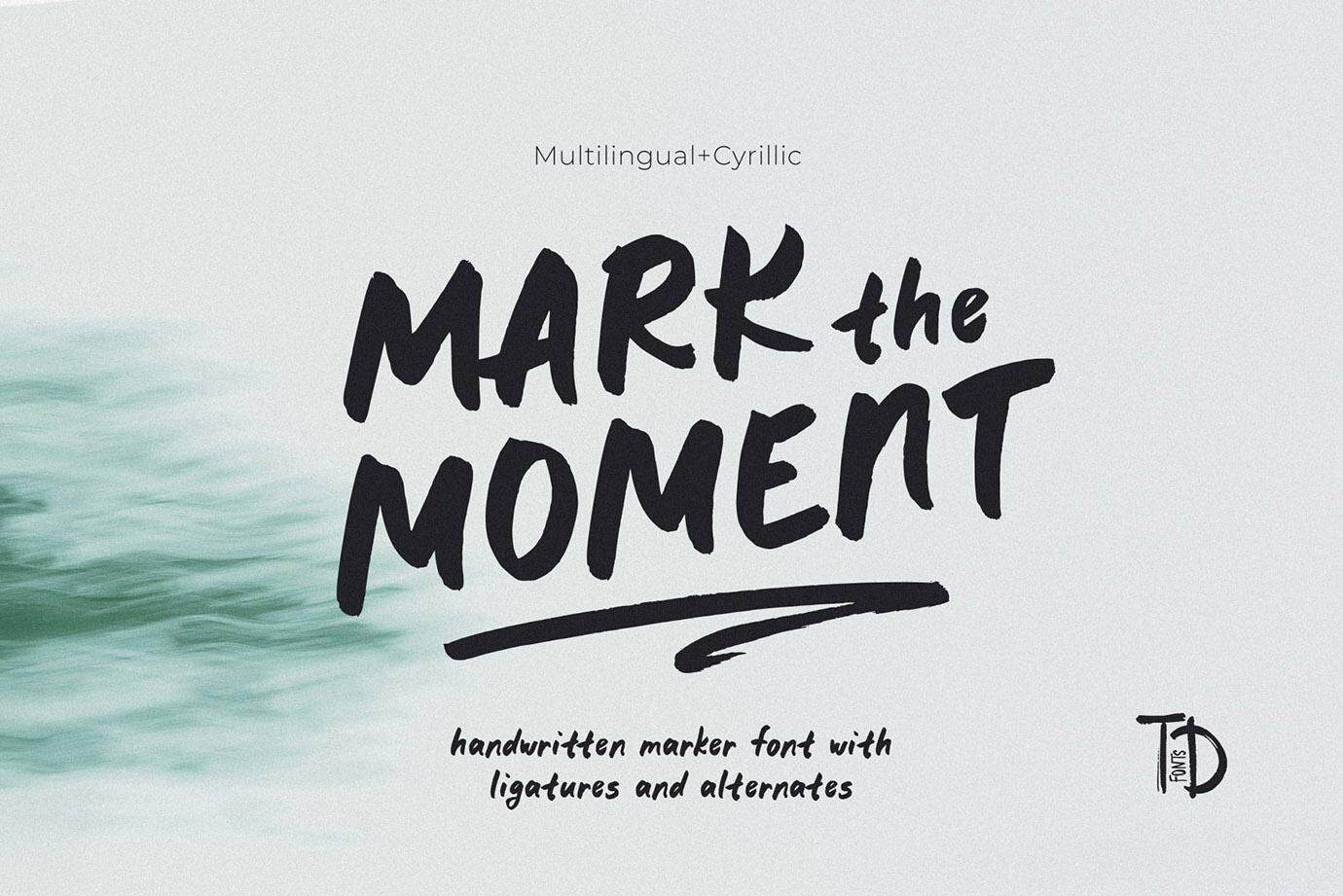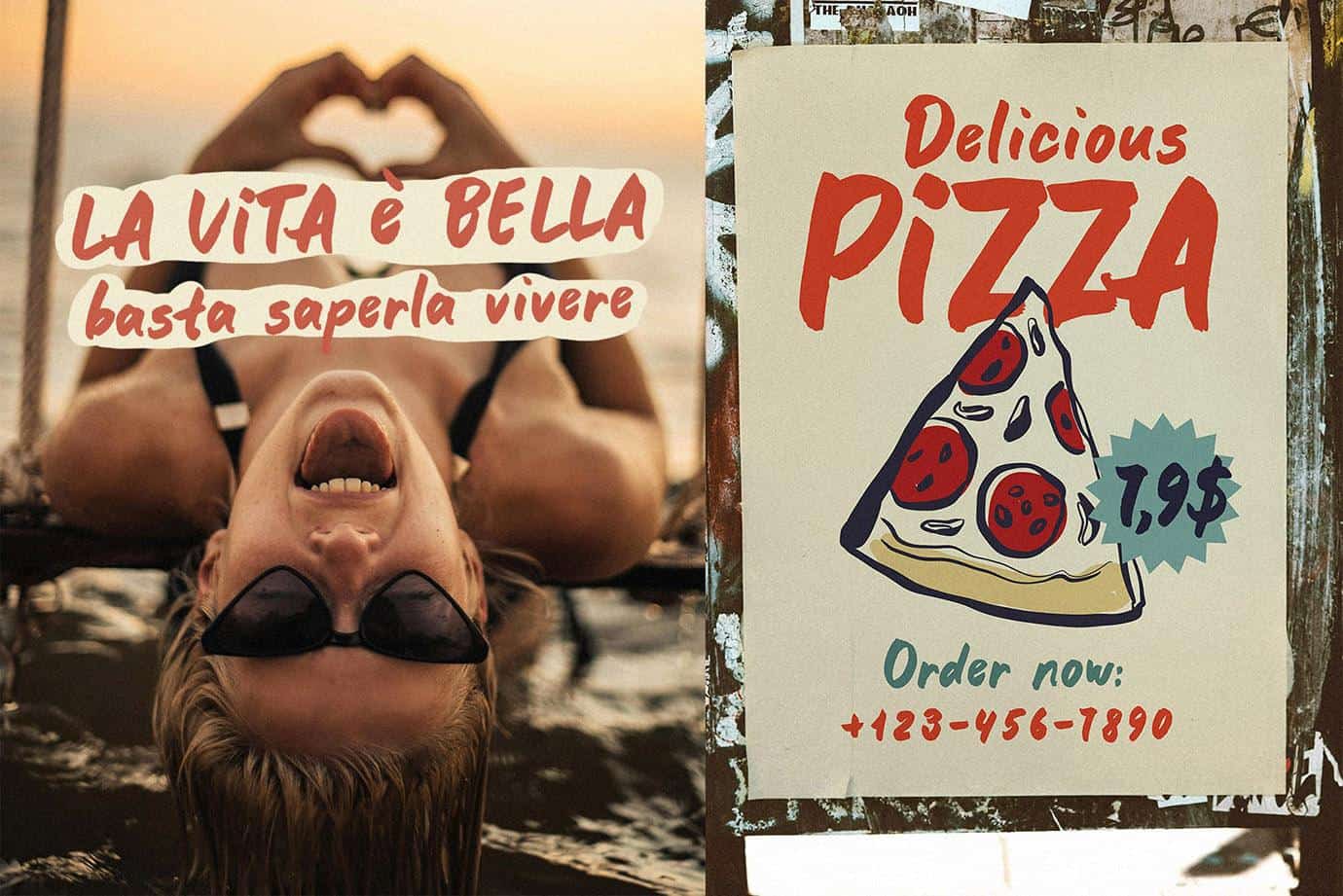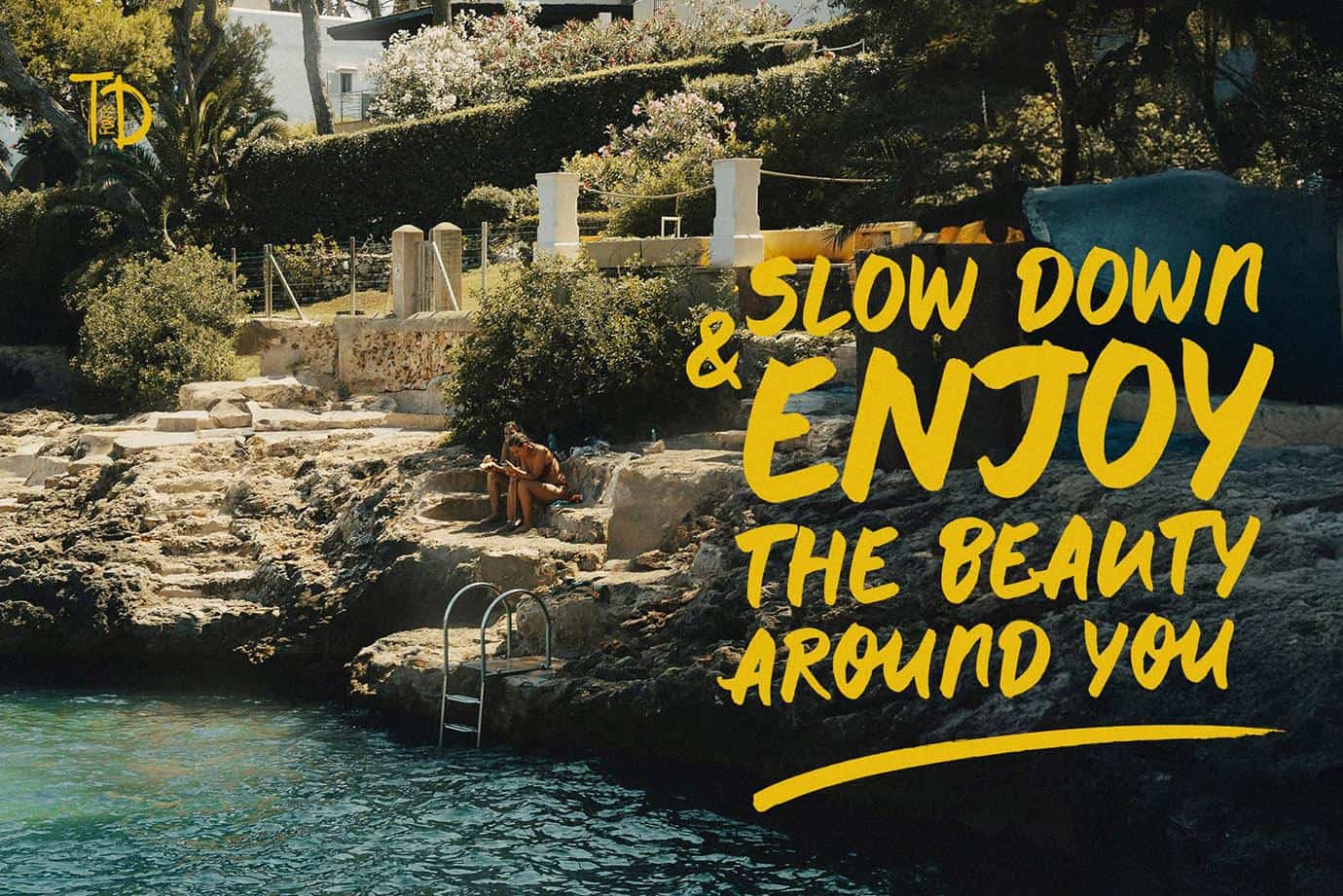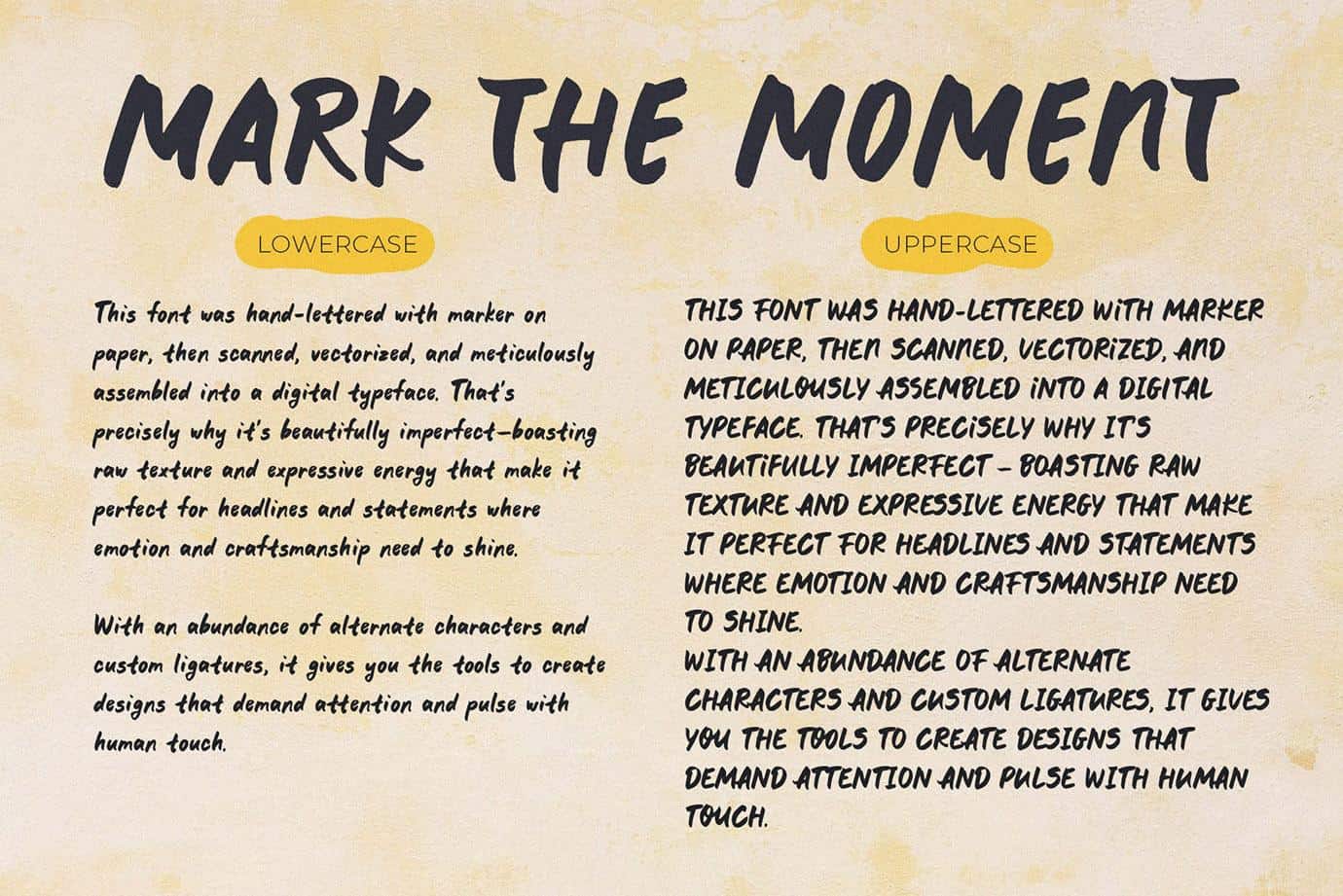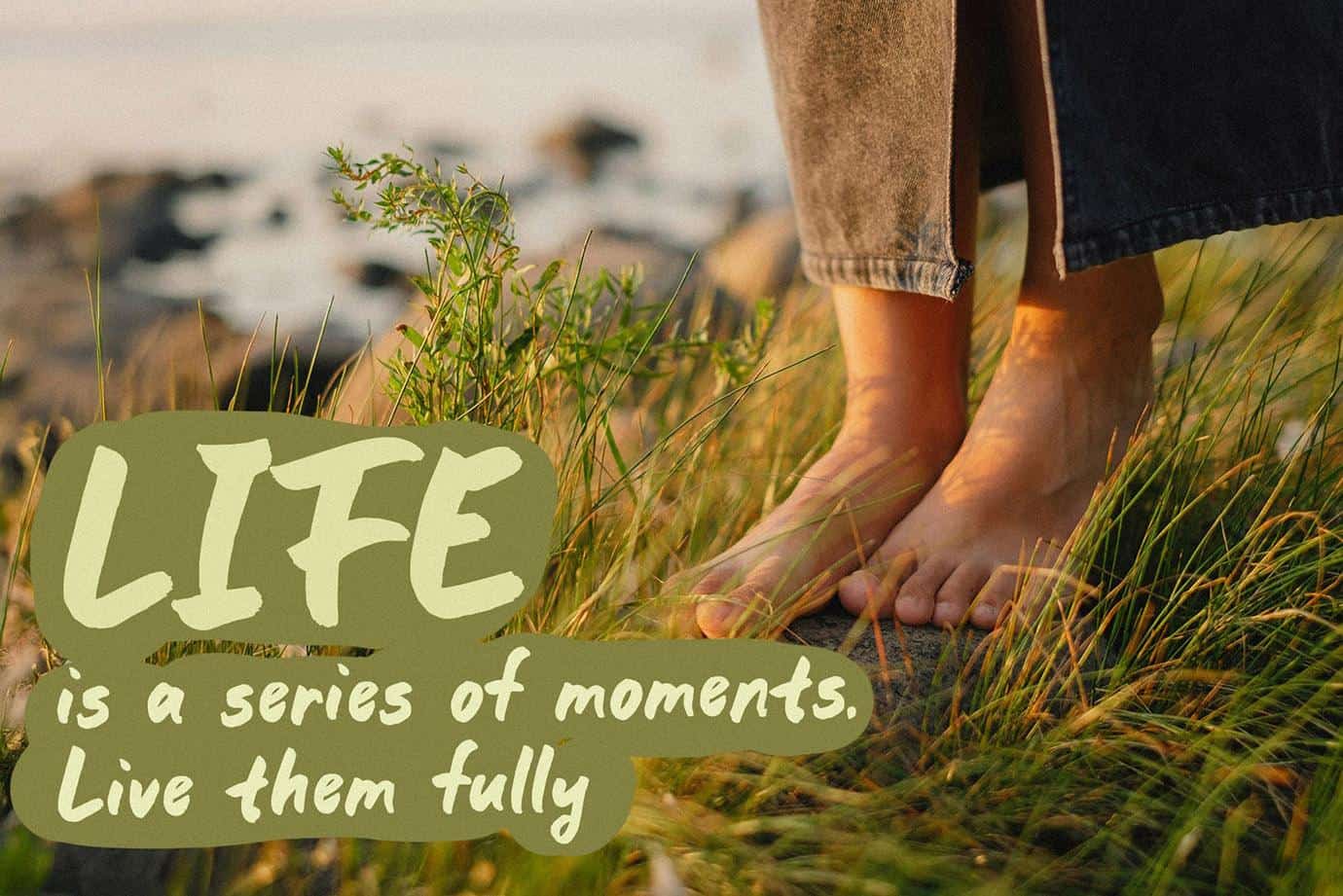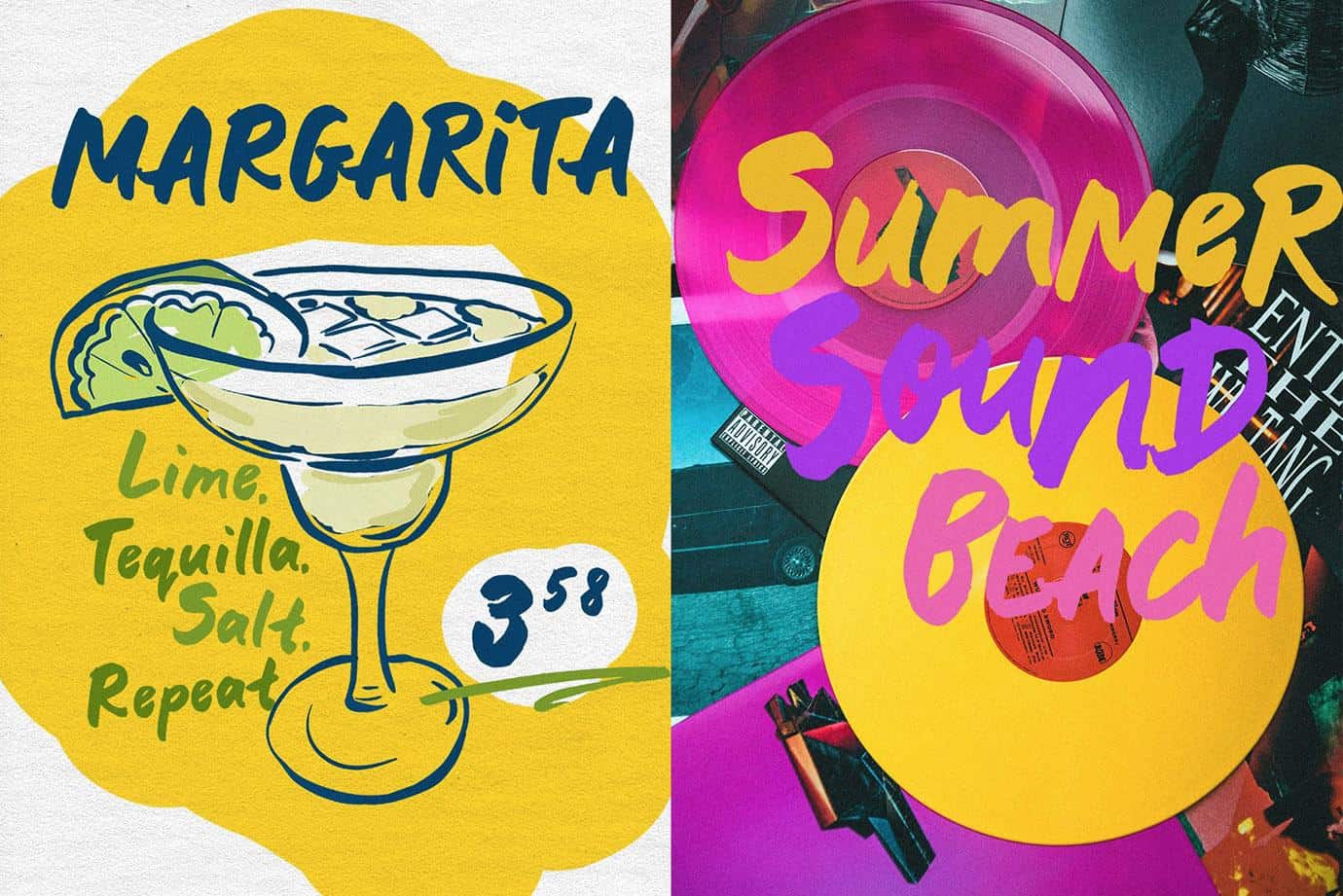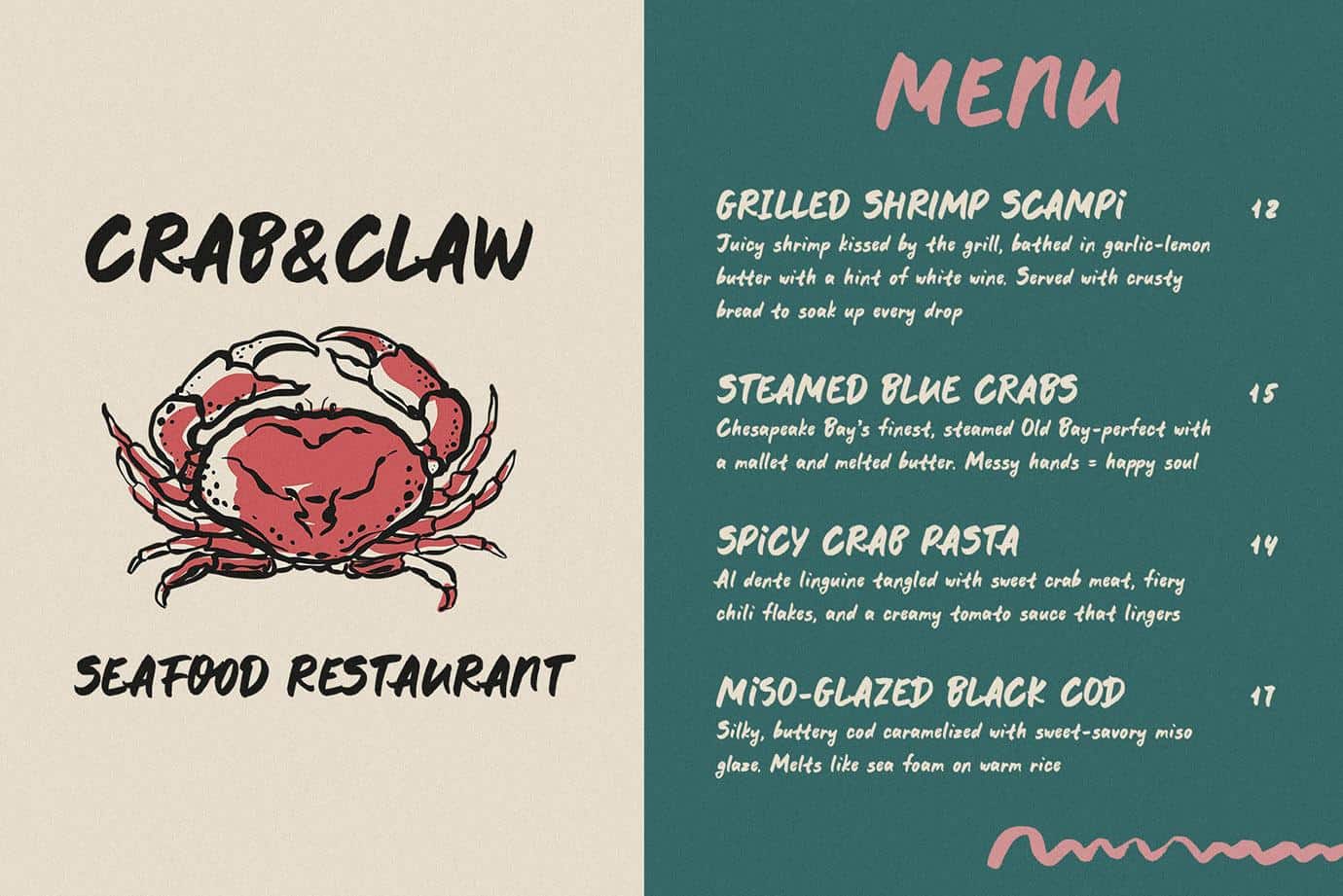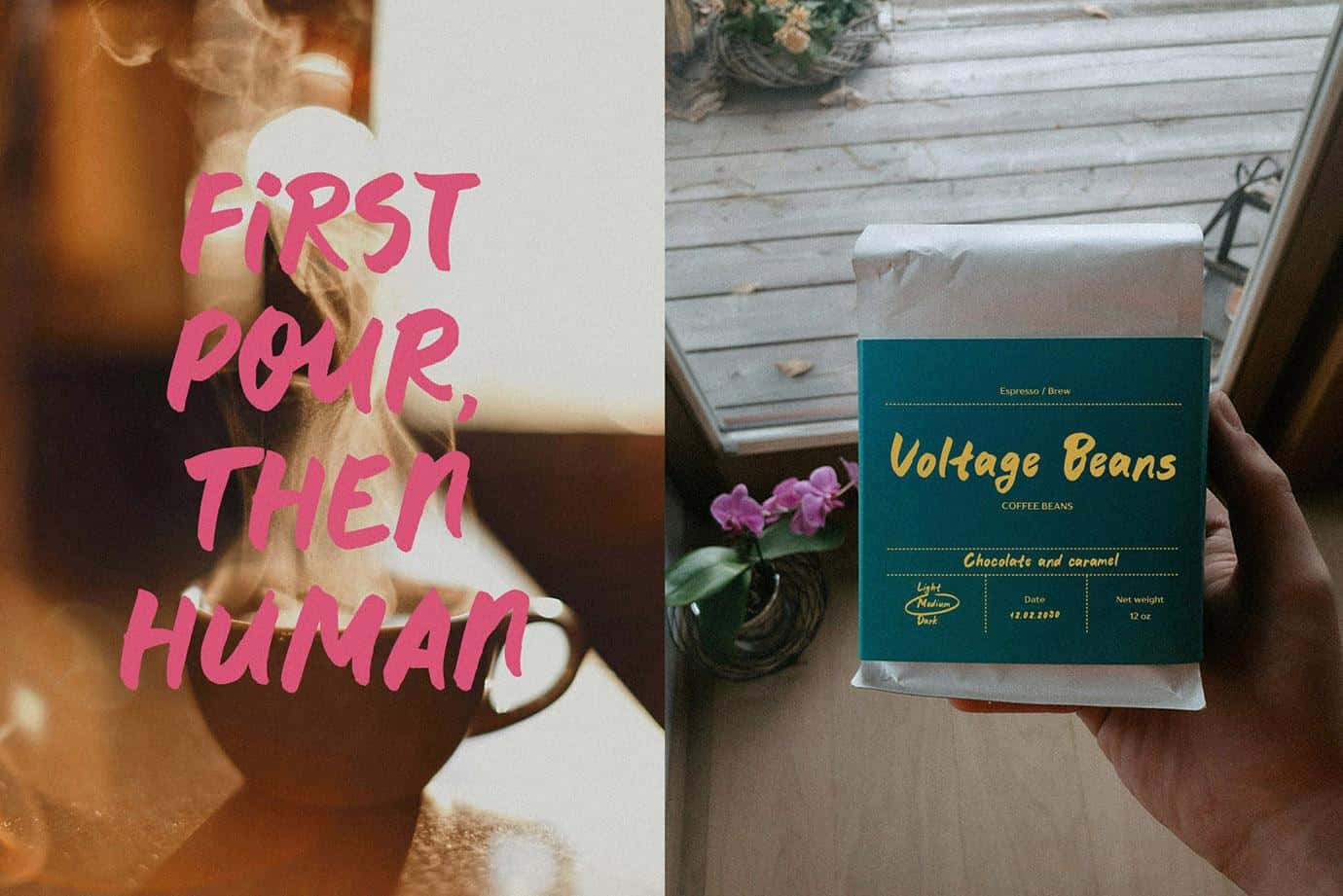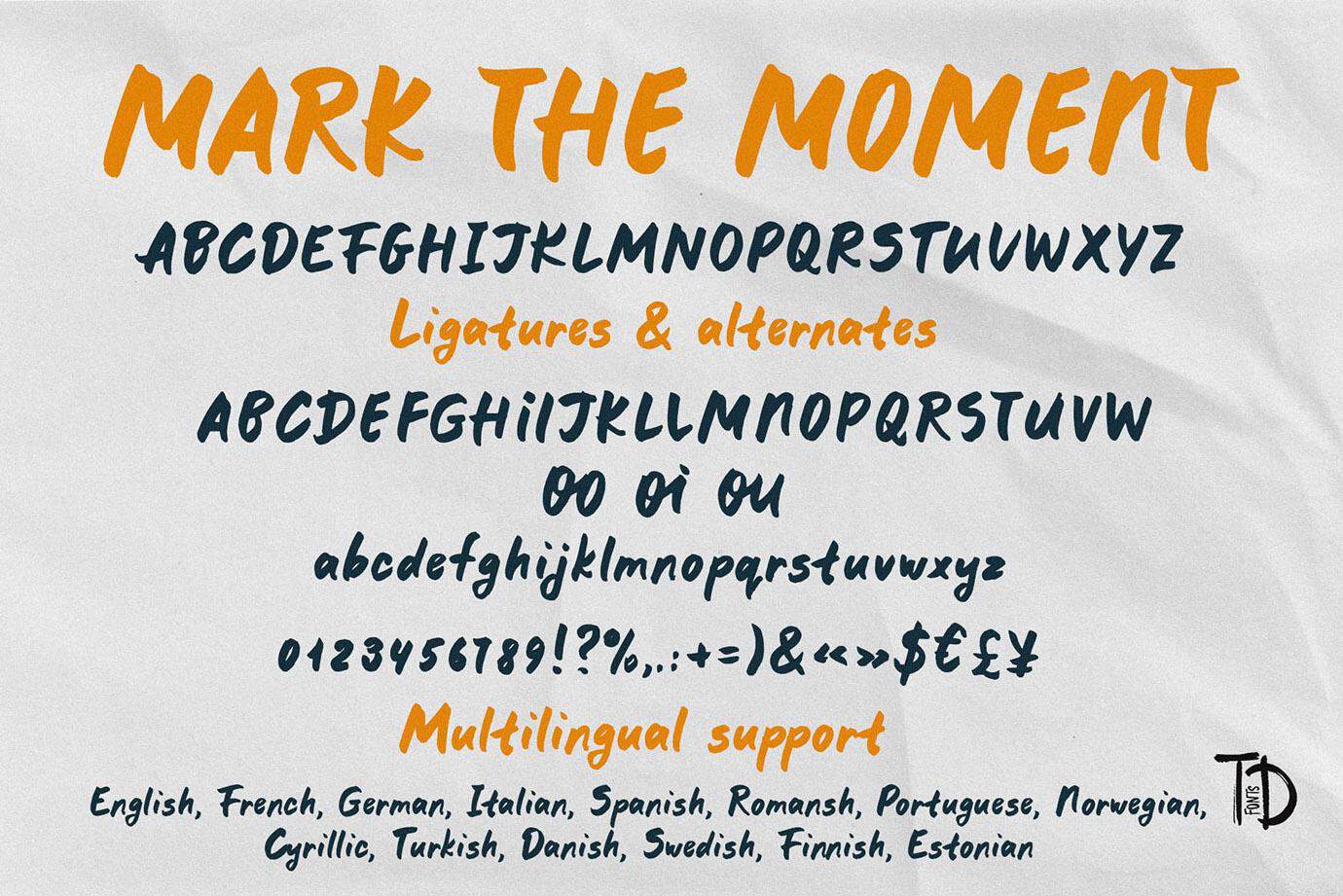
Mark the Moment – Handwritten Marker Font with a Bold Personality
Mark the Moment is a handwritten marker font designed to bring energy, authenticity, and a handcrafted feel to your designs
Mark the Moment is a handwritten marker font designed to bring energy, authenticity, and a handcrafted feel to your designs. Created with a real marker on paper, then carefully scanned, vectorized, and converted into a professional handwritten typeface, this font retains its expressive strokes and natural texture. Perfectly imperfect, it adds personality and emotion to any project.
This marker handwriting font includes a variety of ligatures and alternate characters, allowing you to create dynamic, eye-catching compositions. Whether you’re working on branding, packaging, editorial design, or social media content, Mark the Moment helps you craft unique and engaging visuals.
Why Choose Mark the Moment?
✔ Authentic Handwritten Feel – Designed with real marker strokes for a natural, expressive look.
✔ Perfect for Bold Headlines – Ideal for projects that need a strong, emotional touch.
✔ Versatile Usage – Works beautifully in logos, posters, advertisements, product packaging, and digital designs.
✔ Multilingual Support – Great for global brands and international projects.
✔ Handcrafted Texture – Adds a warm, human touch to any design.
This handwritten marker font is a great choice for graphic designers, branding experts, small business owners, and creatives who want to make their work stand out. Whether you’re designing a modern brand, an eco-friendly product, a film poster, or social media graphics, Mark the Moment helps you capture attention with its bold and expressive style.